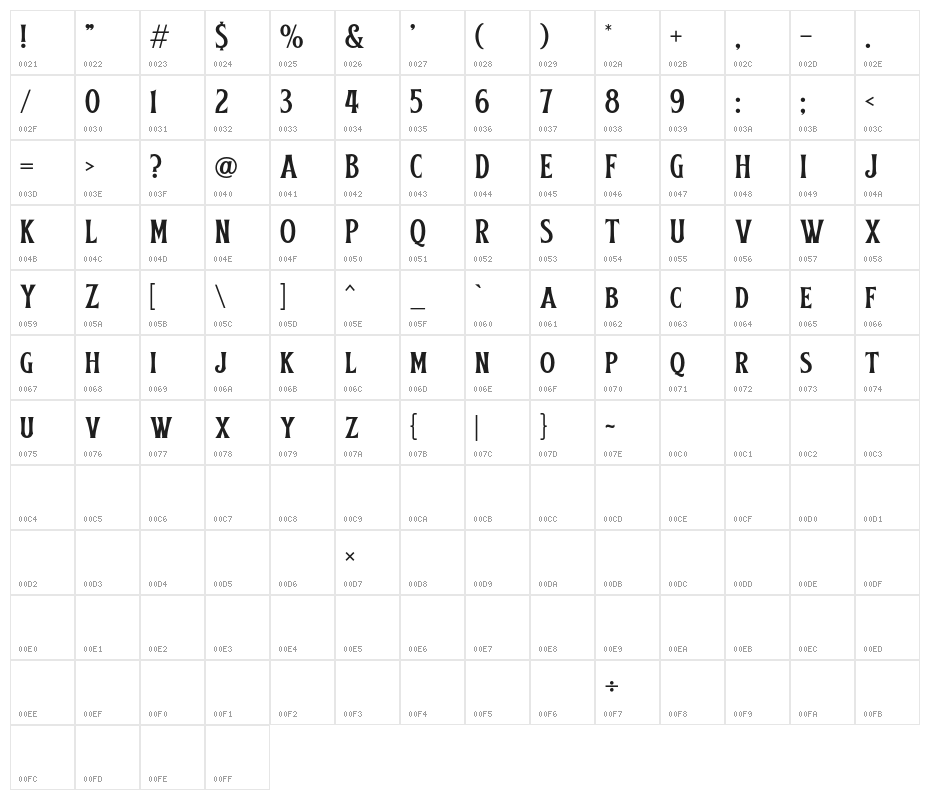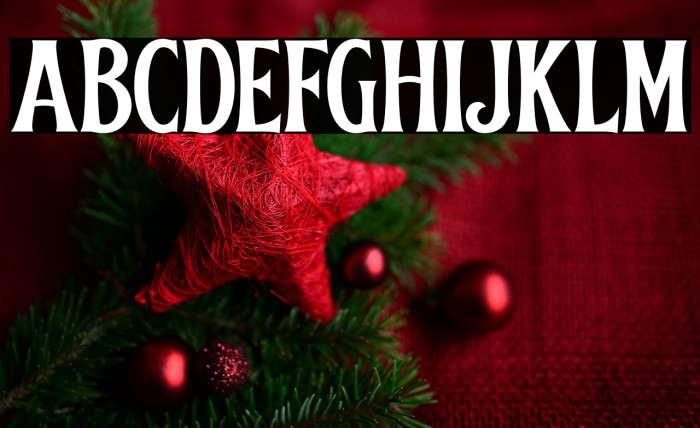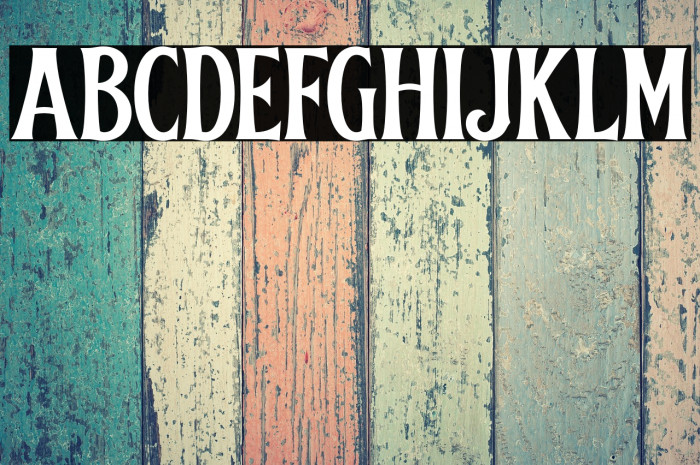
Obsypac Font
Obsypac Description
This font features a bold and dynamic style with a strong presence. The characters are designed with a slight inward curve, giving them a unique and playful appearance. The uppercase letters are particularly striking, with a consistent width and a slight flare at the ends, adding to their boldness. The lowercase letters maintain the same boldness, ensuring readability and consistency throughout. Numbers are equally robust, matching the style of the letters. Special characters are well-integrated, maintaining the overall aesthetic. This font's boldness and distinct style make it suitable for attention-grabbing designs.
| Proposed Projects | Ideal for posters, headlines, branding, and any project requiring a strong visual impact. |